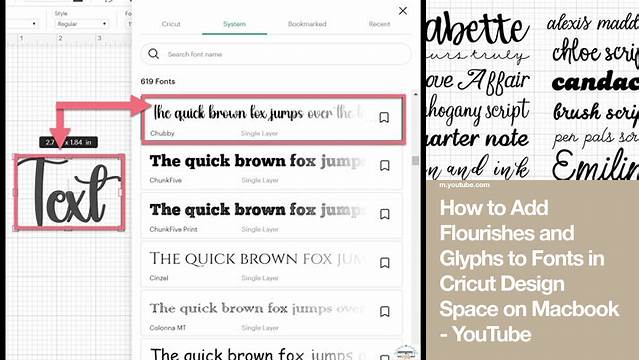
Add Fonts To Cricut On MacBook: Easy Guide
Adding new fonts to your Cricut Design Space on a MacBook can unlock a world of creative possibilities. This comprehensive guide breaks down the process into easy-to-follow steps, ensuring you can personalize your projects with unique typography. From finding the perfect font to installing it correctly and using it in your designs, we've got you covered. So, let's dive in and elevate your crafting game!
1. Understanding Font Compatibility with Cricut Design Space
Before you even start downloading fonts, it’s super crucial to understand what types of fonts Cricut Design Space plays nicely with. Generally, Cricut Design Space supports .OTF (OpenType Font) and .TTF (TrueType Font) formats. These are like, the industry standards, guys, so you'll usually be good to go. But, you know, always double-check before you get too attached to a font! Make sure the font you're eyeing is available in one of these formats to avoid any headaches later on. Nobody wants their creative flow interrupted by compatibility issues, right? Also, keep in mind that while Cricut Design Space supports a vast array of fonts, some fonts might not render perfectly due to their complexity. If you encounter any issues, try simplifying the font or using a different one altogether. Remember, the goal is to create beautiful and seamless projects, so don't be afraid to experiment and find what works best for you. This foundational knowledge will save you time and frustration in the long run, ensuring a smooth and enjoyable font-adding experience.
2. Finding Free Fonts for Cricut on Your MacBook
Okay, so you know what fonts work. Now, let’s find some awesome free fonts! The internet is overflowing with options, but you gotta be careful where you download from. Reputable sites like Google Fonts, DaFont, and FontSpace are usually safe bets. These sites offer a huge variety of fonts, from classic serif fonts to fun, quirky display fonts. When browsing for free fonts, pay attention to the license. Some fonts are free for personal use but require a commercial license if you plan to sell your creations. Make sure you respect the designer's terms to avoid any legal issues down the road. Once you've found a font you like, download it to your MacBook. Most fonts come in a .zip file, so you'll need to unzip it to access the .OTF or .TTF file inside. After you've unzipped the file, you're ready to install the font on your system. Finding the right free fonts can be a game-changer for your Cricut projects, allowing you to add a personal touch without breaking the bank. So, take your time, explore different options, and discover the perfect fonts to bring your creative visions to life.
3. Installing Fonts on macOS for Cricut Design Space
Alright, you've downloaded your font; now it’s time to install it on your MacBook. This is actually a pretty straightforward process. First, locate the .OTF or .TTF file you downloaded. Double-click the file, and Font Book (macOS's built-in font management app) will pop up. In Font Book, you'll see a preview of the font. Click the "Install Font" button at the bottom of the window. macOS will then validate the font and install it on your system. Once the installation is complete, the font will be available for use in all applications on your MacBook, including Cricut Design Space. If you have multiple font files, you can install them all at once by selecting them and dragging them into the Font Book window. This can save you time and effort, especially if you're installing a large font family. Sometimes, you might encounter a warning message about font validation. This usually means that macOS has detected a potential issue with the font. While you can still choose to install the font, it's generally a good idea to proceed with caution and test the font in Cricut Design Space to ensure it renders correctly. Installing fonts is a crucial step in customizing your crafting projects, so make sure you follow these instructions carefully to avoid any issues.
4. Activating New Fonts in Cricut Design Space
Okay, so you've installed the font on your MacBook, but you're not seeing it in Cricut Design Space? Don't panic! Sometimes, Cricut Design Space needs a little nudge to recognize newly installed fonts. The easiest way to do this is to simply close and reopen Cricut Design Space. This forces the application to refresh its font list and recognize the new fonts you've installed. If that doesn't work, try restarting your MacBook. This can help clear any lingering caches or temporary files that might be preventing Cricut Design Space from recognizing the new fonts. Once you've restarted your MacBook, open Cricut Design Space and check the font list again. Your newly installed fonts should now be visible and ready to use. If you're still having trouble, make sure that the font is properly installed in Font Book. You can also try uninstalling and reinstalling the font to ensure that it's correctly registered with your system. Activating new fonts in Cricut Design Space is a simple process, but it's essential to ensure that you can access and use the fonts you've installed. With a little troubleshooting, you'll be able to add a wide variety of fonts to your projects and create stunning designs.
5. Troubleshooting Font Issues in Cricut Design Space
Even after following all the steps, sometimes fonts just don't want to cooperate. Here’s a few things to try. First, double-check that the font is actually installed in Font Book. If it’s not there, you’ll need to reinstall it. Second, make sure the font is compatible with Cricut Design Space. As mentioned earlier, Cricut Design Space primarily supports .OTF and .TTF formats. If you're using a different font format, it might not work properly. Third, try clearing the cache in Cricut Design Space. This can help resolve any conflicts or issues that might be preventing the font from rendering correctly. To clear the cache, go to the Cricut Design Space menu and select "Clear Cache." Fourth, make sure your Cricut Design Space software is up to date. Outdated software can sometimes cause compatibility issues with fonts. Finally, if all else fails, try contacting Cricut support for assistance. They might be able to provide specific troubleshooting steps or identify any underlying issues with your account or software. Troubleshooting font issues can be frustrating, but with a little patience and persistence, you'll be able to resolve most problems and get your fonts working properly in Cricut Design Space.
6. Using Font Filters in Cricut Design Space
Cricut Design Space has a pretty handy feature: font filters! These filters let you sort and find fonts based on different criteria, like style, weight, and whether they're single-layer or multi-layer fonts. Using font filters can save you a ton of time when you're trying to find the perfect font for your project. For example, if you're looking for a bold, sans-serif font for a title, you can use the filters to narrow down your search and quickly find the fonts that match your criteria. You can also filter fonts by language, which is helpful if you're working on projects that require specific character sets or alphabets. In addition to the built-in font filters, you can also create your own custom filters to organize your fonts in a way that makes sense to you. This can be especially useful if you have a large font collection and want to quickly access your favorite fonts for different types of projects. Using font filters effectively can streamline your design process and help you find the perfect font for every occasion. So, take some time to explore the different filter options and discover how they can help you organize and manage your font collection.
7. Creating Font Combinations for Cricut Projects
One of the keys to great design is font combination. You don't want to just pick any two fonts and throw them together! A good rule of thumb is to pair a decorative font with a simpler, more readable font. For example, you could use a fancy script font for a heading and a clean sans-serif font for the body text. Another thing to consider is the overall tone and style of your project. If you're creating a whimsical, playful design, you might choose a combination of fun, quirky fonts. On the other hand, if you're creating a more elegant, sophisticated design, you might opt for a classic serif font paired with a clean, modern sans-serif font. Experiment with different font combinations until you find something that looks and feels right. Don't be afraid to break the rules and try new things, but always keep readability and visual harmony in mind. Creating effective font combinations can elevate your Cricut projects and make them more visually appealing and professional-looking. So, take some time to explore different font pairings and discover the combinations that work best for your style and preferences.
8. Using Script Fonts Effectively in Cricut Design Space
Script fonts can add a touch of elegance and personality to your Cricut projects, but they can also be tricky to work with. One of the most common issues with script fonts is that the letters don't always connect properly in Cricut Design Space. To fix this, you'll need to use the letter spacing and kerning tools to adjust the spacing between the letters and ensure that they flow together seamlessly. Another thing to keep in mind when using script fonts is that they can be difficult to read at small sizes. To ensure that your script fonts are legible, choose a font that is clear and easy to read, and avoid using it for long blocks of text. Instead, use script fonts sparingly for headings, titles, and other decorative elements. When cutting script fonts with your Cricut machine, it's important to use a sharp blade and a slow cutting speed to prevent tearing and ensure clean, precise cuts. You may also need to weed the design carefully to remove any small pieces of vinyl or paper that are stuck to the letters. Using script fonts effectively can add a touch of sophistication and style to your Cricut projects, but it's important to pay attention to the details and take the time to adjust the letter spacing and kerning to achieve the best results.
9. Kerning and Letter Spacing Adjustments
Speaking of kerning and letter spacing, let's dive a bit deeper. Kerning refers to the adjustment of the space between individual letters, while letter spacing refers to the overall spacing between all letters in a word or phrase. Both kerning and letter spacing are essential for creating visually appealing and readable text in your Cricut projects. In Cricut Design Space, you can adjust the kerning and letter spacing of your text by selecting the text box and using the letter spacing and kerning tools in the Edit panel. Experiment with different settings until you achieve the desired look and feel. Keep in mind that different fonts may require different kerning and letter spacing adjustments. Some fonts may have built-in kerning tables that automatically adjust the spacing between letters, while others may require manual adjustments to achieve optimal results. When adjusting kerning and letter spacing, it's important to pay attention to the overall balance and harmony of the text. You want to ensure that the letters are evenly spaced and that the text is easy to read. Overly tight or loose spacing can make the text look cluttered or disjointed, so take the time to fine-tune the kerning and letter spacing until you achieve a visually pleasing result.
10. Uploading Your Own Fonts to Cricut Design Space
If you can't find the perfect font in the Cricut Design Space library or on free font websites, you can always upload your own fonts. This is a great way to add a personal touch to your projects and use unique fonts that you've purchased or created yourself. To upload a font to Cricut Design Space, go to the System Fonts tab in the font selection menu and click the "Upload Font" button. Then, select the .OTF or .TTF file that you want to upload and click "Open." Cricut Design Space will then install the font and make it available for use in your projects. Keep in mind that you are responsible for ensuring that you have the proper license to use any fonts that you upload to Cricut Design Space. If you're using a font that you've purchased, make sure that you have a commercial license that allows you to use the font for commercial purposes. If you're using a free font, make sure that you comply with the terms of the font's license. Uploading your own fonts to Cricut Design Space is a great way to expand your font library and add a personal touch to your projects. Just make sure that you have the proper license to use the fonts and that you comply with the terms of the font's license.
11. Using Font Bundles for Cricut Projects
Font bundles are collections of fonts that are sold together at a discounted price. These bundles can be a great way to expand your font library without breaking the bank. Many websites offer font bundles that are specifically designed for Cricut users. These bundles often include a variety of fonts in different styles, such as script fonts, sans-serif fonts, and decorative fonts. When choosing a font bundle, it's important to consider the types of projects that you typically create. If you primarily create vinyl decals, you'll want to choose a bundle that includes fonts that are easy to cut and weed. If you primarily create paper crafts, you'll want to choose a bundle that includes fonts that are suitable for printing. It's also important to check the license terms of the font bundle before you purchase it. Some font bundles are for personal use only, while others include a commercial license that allows you to use the fonts for commercial purposes. Using font bundles can be a great way to save money and expand your font library, but it's important to choose a bundle that meets your specific needs and to check the license terms before you purchase it.
12. Exploring Different Font Styles
Font styles are like, the personality of your text! You’ve got Serif fonts (think Times New Roman, with those little feet), Sans-Serif (like Arial or Helvetica, super clean), Script fonts (all cursive and fancy), and Display fonts (totally unique and eye-catching). Each style brings a different vibe to your project, so experiment and see what fits best! Serif fonts often give a more traditional or formal feel, while sans-serif fonts tend to be more modern and minimalist. Script fonts can add a touch of elegance or whimsy, depending on the specific font. Display fonts are great for headlines and titles, but they can be overwhelming if used for large blocks of text. When choosing font styles for your Cricut projects, consider the overall message and tone that you want to convey. Are you creating a rustic farmhouse sign? A playful birthday card? A sophisticated wedding invitation? The font style should complement the overall design and enhance the message that you're trying to communicate.
13. Monogram Font Projects on Cricut
Monogram fonts are super popular for personalizing everything from bags to home decor. Cricut Design Space makes it easy to create monograms with a variety of fonts and designs. You can find monogram fonts online or create your own by combining individual letters using the letter spacing and kerning tools. When creating monograms, it's important to consider the order of the letters. Traditionally, monograms are arranged with the last name initial in the center, flanked by the first name initial on the left and the middle name initial on the right. However, you can also choose to arrange the letters in a different order if you prefer. Monogram fonts can be used to create a wide variety of Cricut projects, such as personalized mugs, tote bags, and wall decals. They can also be used to create custom gifts for friends and family. When working with monogram fonts, it's important to choose a font that is easy to read and that complements the overall design of your project. You'll also want to make sure that the letters are properly spaced and aligned to create a visually appealing monogram.
14. Font Size Considerations for Cricut Designs
Font size matters, guys! You don't want teeny-tiny text that's impossible to cut or giant letters that overwhelm your design. Think about the size of your project and the viewing distance. Test cuts are your best friend here! A font that looks great on your computer screen might not translate well to a physical project. Before you commit to cutting a large design, always do a test cut of the font at the desired size to ensure that it's legible and that your Cricut machine can handle the intricate details. When choosing font sizes for your Cricut designs, also consider the material that you're using. Thinner materials, such as paper or vinyl, may require larger font sizes to prevent tearing or distortion. Thicker materials, such as wood or acrylic, may be able to accommodate smaller font sizes without any issues. In addition to the overall size of the font, also pay attention to the letter spacing and kerning. Tight letter spacing can make small fonts difficult to read, while loose letter spacing can make large fonts look disjointed. Experiment with different letter spacing and kerning settings until you achieve a visually appealing and readable result.
15. Curving Text with Fonts in Cricut Design Space
Curved text can add a unique and dynamic element to your Cricut projects. Cricut Design Space has a built-in curve tool that allows you to easily curve text along a circular path. To curve text in Cricut Design Space, select the text box and click the "Curve" button in the Edit panel. Then, adjust the slider to control the amount of curvature. You can also adjust the position of the text along the curve by dragging the circular handle. When curving text, it's important to choose a font that is suitable for curved designs. Fonts with rounded edges and a consistent stroke weight tend to work well for curved text. Avoid using fonts with sharp angles or extreme variations in stroke weight, as these can look distorted when curved. Curved text can be used to create a wide variety of Cricut projects, such as circular signs, banners, and labels. It can also be used to add a whimsical touch to your designs. Experiment with different fonts and curve settings to create unique and eye-catching effects.
16. Shadow Effects with Fonts on Cricut
Adding shadow effects to your fonts can give your Cricut projects depth and dimension. There are several ways to create shadow effects in Cricut Design Space. One way is to duplicate the text layer and offset it slightly from the original layer. Then, change the color of the offset layer to create the shadow effect. Another way is to use the shadow feature in Cricut Design Space. To use the shadow feature, select the text box and click the "Shadow" button in the Edit panel. Then, adjust the settings to control the size, direction, and color of the shadow. When creating shadow effects, it's important to choose a font that is suitable for shadow effects. Fonts with a consistent stroke weight and a clean, simple design tend to work well for shadow effects. Avoid using fonts with intricate details or extreme variations in stroke weight, as these can make the shadow effect look cluttered. Shadow effects can be used to create a wide variety of Cricut projects, such as layered vinyl decals, paper crafts, and 3D projects. They can also be used to add a touch of realism and depth to your designs.
17. Welding Fonts for Continuous Cuts
When working with script fonts or other fonts with overlapping letters, it's important to weld the letters together to create a continuous cut. Welding eliminates the overlapping cut lines and ensures that the letters are cut as a single piece. To weld fonts in Cricut Design Space, select the text box and click the "Weld" button in the Layers panel. This will combine all of the selected layers into a single layer and eliminate the overlapping cut lines. Before welding fonts, it's important to adjust the letter spacing and kerning to ensure that the letters are properly connected. You may also need to ungroup the letters and manually adjust their positions to create a seamless connection. Welding fonts is essential for creating clean, professional-looking Cricut projects, especially when working with intricate designs or delicate materials. It ensures that the letters are cut accurately and that the finished product is durable and long-lasting.
18. Layering Fonts in Cricut Design Space
Layering fonts can create cool visual effects and add depth to your Cricut projects. It involves using multiple fonts in different colors or materials to create a layered design. To layer fonts in Cricut Design Space, simply add multiple text boxes to your canvas and arrange them in the desired order. You can use different fonts, colors, and sizes to create a variety of layered effects. When layering fonts, it's important to consider the overall balance and harmony of the design. Choose fonts that complement each other and that work well together in terms of style, weight, and size. You can also experiment with different layering techniques, such as offsetting the layers or using different blending modes, to create unique and eye-catching effects. Layering fonts is a great way to add a personal touch to your Cricut projects and create designs that are both visually appealing and meaningful.
19. Using Different Font Colors in Cricut
Don't underestimate the power of color! Using different font colors can make your Cricut projects pop. Think about your color palette and how different colors complement each other. You can use contrasting colors to create a bold statement or complementary colors to create a more harmonious look. In Cricut Design Space, you can easily change the color of your fonts by selecting the text box and choosing a new color from the color palette. You can also use custom colors by entering the hex code or RGB values. When choosing font colors, it's important to consider the overall design and the message that you want to convey. Bright, vibrant colors can be used to create a playful and energetic design, while more muted colors can be used to create a sophisticated and elegant look. Using different font colors is a simple but effective way to add personality and visual interest to your Cricut projects.
20. Using Fonts for Stencils with Cricut
Creating stencils with your Cricut is a fun and easy way to personalize your home decor and craft projects. When choosing fonts for stencils, it's important to select fonts that are easy to cut and weed. Sans-serif fonts with a consistent stroke weight tend to work well for stencils. Avoid using fonts with intricate details or thin lines, as these can be difficult to cut and weed. In Cricut Design Space, you can easily create stencils by using the stencil feature. To use the stencil feature, select the text box and click the "Stencil" button in the Layers panel. This will create a stencil outline around the text that can be used for cutting. When cutting stencils, it's important to use a sharp blade and a slow cutting speed to prevent tearing and ensure clean, precise cuts. You'll also want to use a stencil material that is durable and easy to clean. Using fonts for stencils is a great way to add a personal touch to your home decor and craft projects.
21. Font Licensing for Commercial Use
If you plan to sell your Cricut projects, it's crucial to understand font licensing. Many fonts are free for personal use but require a commercial license for selling items. Always check the font's license before using it in a product you intend to sell. Commercial licenses vary in terms of what they allow, so read the fine print! Some licenses may restrict the number of items you can sell, while others may require you to give credit to the font designer. Using a font without the proper license can result in legal issues, so it's always better to be safe than sorry. There are many websites that offer fonts with commercial licenses, so you can easily find fonts that you can use for your business. Understanding font licensing is essential for running a successful and ethical Cricut business.
22. Creating Personalized Gifts with Fonts
Fonts are your best friend when it comes to personalized gifts. Mugs, shirts, tote bags – the possibilities are endless! Think about the recipient's style and choose a font that reflects their personality. A simple monogram can add a touch of elegance, while a fun, quirky font can add a playful touch. You can also use fonts to create custom quotes or messages that are meaningful to the recipient. When creating personalized gifts, it's important to choose high-quality materials that will last. You'll also want to make sure that the font is easy to read and that the design is well-executed. Personalized gifts are a thoughtful way to show someone that you care, and fonts can help you create unique and memorable gifts that will be treasured for years to come.
23. Text Wrapping Techniques in Cricut Design Space
Text wrapping is a useful feature in Cricut Design Space that allows you to control how text flows within a text box. You can use text wrapping to create interesting text layouts and to fit text into specific shapes or designs. To use text wrapping in Cricut Design Space, select the text box and adjust the width of the text box to control where the text wraps. You can also use the line break character (Shift + Enter) to manually break the text into multiple lines. When using text wrapping, it's important to consider the overall readability of the text. Avoid creating lines that are too short or too long, and make sure that the text is evenly spaced and aligned. Text wrapping can be used to create a variety of interesting text layouts, such as circular text, text that follows a curved path, and text that is arranged in a specific shape.
24. Combining Fonts with Images in Cricut Projects
The true magic happens when you combine fonts with images! This is where you can really let your creativity shine. Think about how the font and image work together to tell a story or convey a message. A whimsical image paired with a playful font can create a fun and lighthearted design, while a sophisticated image paired with an elegant font can create a more refined look. In Cricut Design Space, you can easily combine fonts with images by uploading your own images or using the images in the Cricut Design Space library. You can then arrange the font and image in the desired order and adjust their sizes and positions to create a visually appealing design. Combining fonts with images is a great way to create unique and personalized Cricut projects that are both visually stunning and meaningful.
25. Using Glyphs and Special Characters
Glyphs are those fancy extra characters that come with some fonts! They can add a touch of elegance or whimsy to your designs. Things like swashes, alternate characters, and ligatures. Not all fonts have them, but when they do, they're a treasure trove of design possibilities. To access glyphs in Cricut Design Space, you'll need to use a character map program on your computer. On a Mac, you can use the Font Book application to view the glyphs for a particular font. Once you've found the glyph that you want to use, you can copy and paste it into Cricut Design Space. Using glyphs and special characters is a great way to add a personal touch to your Cricut projects and create designs that are truly unique.
26. Font Organization Tips for Cricut
If you're like me, you probably have a ton of fonts. Organization is key to staying sane! Create folders for different font styles (script, serif, etc.) or project types (holidays, birthdays). This will make it easier to find the perfect font when you need it. Also, naming the fonts properly will save time when you are working on projects. Another tip is to regularly remove fonts that you don't use. This will free up space on your computer and make it easier to find the fonts that you do use. Font organization is an ongoing process, but it's well worth the effort. A well-organized font library will save you time and frustration and allow you to focus on creating beautiful Cricut projects.
27. Understanding Font Weight and Style
Font weight refers to the thickness of the font, while font style refers to variations such as italic, bold, or condensed. Understanding font weight and style is essential for creating visually appealing and readable text in your Cricut projects. Different font weights and styles can be used to create different effects. For example, a bold font weight can be used to emphasize a particular word or phrase, while an italic font style can be used to add a touch of elegance. When choosing font weight and style, it's important to consider the overall design and the message that you want to convey. A heavy font weight can be used to create a strong and powerful design, while a light font weight can be used to create a delicate and refined design.
28. Creating Custom Watermarks with Fonts
Watermarks are a great way to protect your designs and promote your brand. You can easily create custom watermarks with fonts in Cricut Design Space. Simply create a text box with your logo or name and adjust the font size, color, and opacity to create a subtle watermark. You can then add the watermark to your designs before sharing them online or selling them. When creating watermarks, it's important to choose a font that is easy to read and that complements the overall design of your projects. You'll also want to make sure that the watermark is not too distracting or overwhelming. A well-designed watermark can help protect your work and promote your brand without detracting from the overall aesthetic of your designs.
29. Working with Multilingual Fonts
If you're working on projects that require multiple languages, it's important to choose fonts that support the necessary character sets. Not all fonts include characters for all languages, so you'll need to do some research to find fonts that meet your needs. In Cricut Design Space, you can use the font filter to search for fonts that support specific languages. You can also use a character map program on your computer to view the characters that are included in a particular font. When working with multilingual fonts, it's important to pay attention to the kerning and letter spacing to ensure that the text is readable in all languages. You may also need to adjust the font size or style to accommodate different character sets.
30. Exporting Fonts from Other Programs to Cricut
Sometimes you might find a font you love in another program (like Adobe Illustrator). You can usually export it as an .OTF or .TTF file and then install it on your MacBook, just like we talked about earlier. Make sure the license allows for this! Then, follow the steps to activate the new font in Cricut Design Space.
By following these tips and tricks, you can master the art of adding and using fonts in Cricut Design Space and create stunning, personalized projects that reflect your unique style and creativity. Happy crafting, guys!